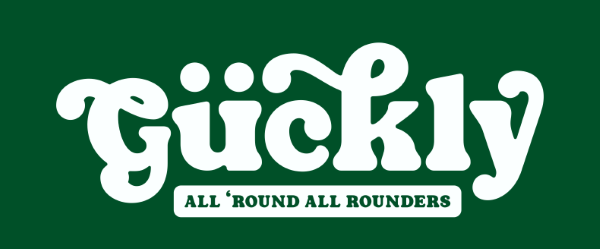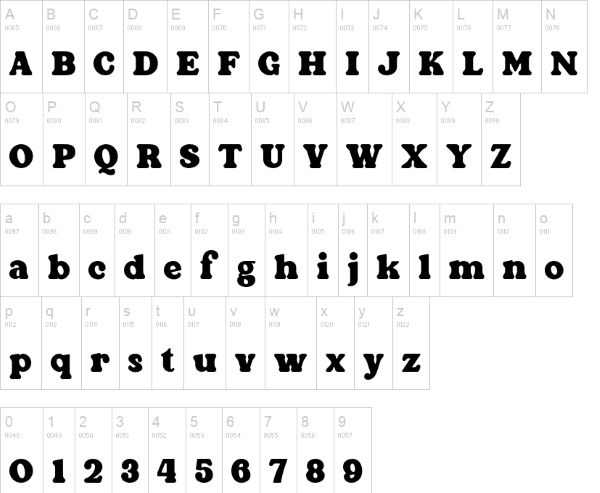
Guckly Font
Guckly font
Guckly Font is a bold display typeface with strong, eye-catching letterforms designed to stand out. Its confident shapes and impactful presence make it perfect for headlines, posters, branding, logos, packaging, and any design that needs a striking visual statement. Guckly delivers contemporary style with maximum attention-grab.
➤ Font Name: Guckly
➤ Designer: Twicolabs Fontdation
➤ Style: Display